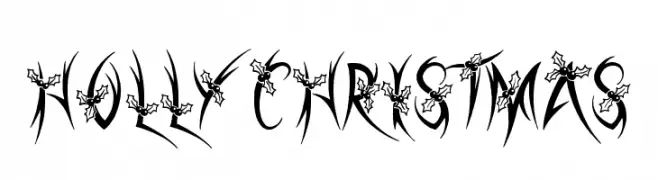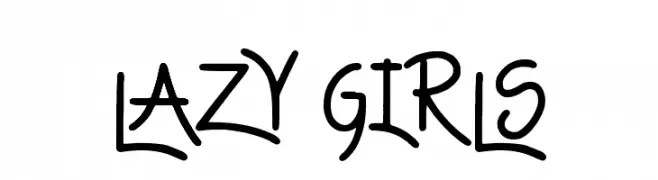
A festive, decorative font with holly leaf accents and angular strokes, perfect for holiday themes.
A dynamic and artistic script font with elongated strokes and bold numerals.
A dynamic, brushstroke-style font with an artistic and expressive flair.
A bold, dynamic script font with flowing, interconnected strokes.
A bold, jagged font with sharp angles and an energetic, primitive style.
A bold, brush-style font with dynamic, hand-drawn characters.
A bold, expressive font with a hand-drawn, dynamic style.
A dynamic, brush-like font with sharp, angular strokes and an artistic flair.
A playful, handwritten font with a whimsical and relaxed style.
A playful, hollow font with a whimsical and artistic style.